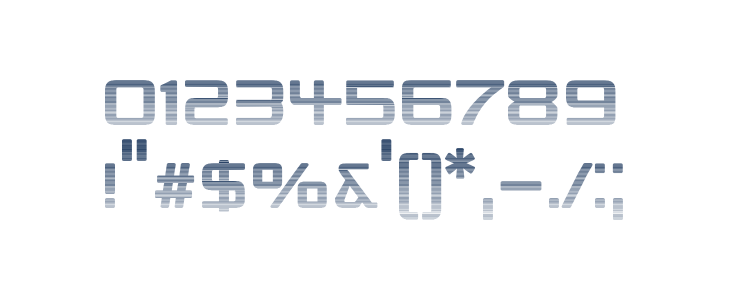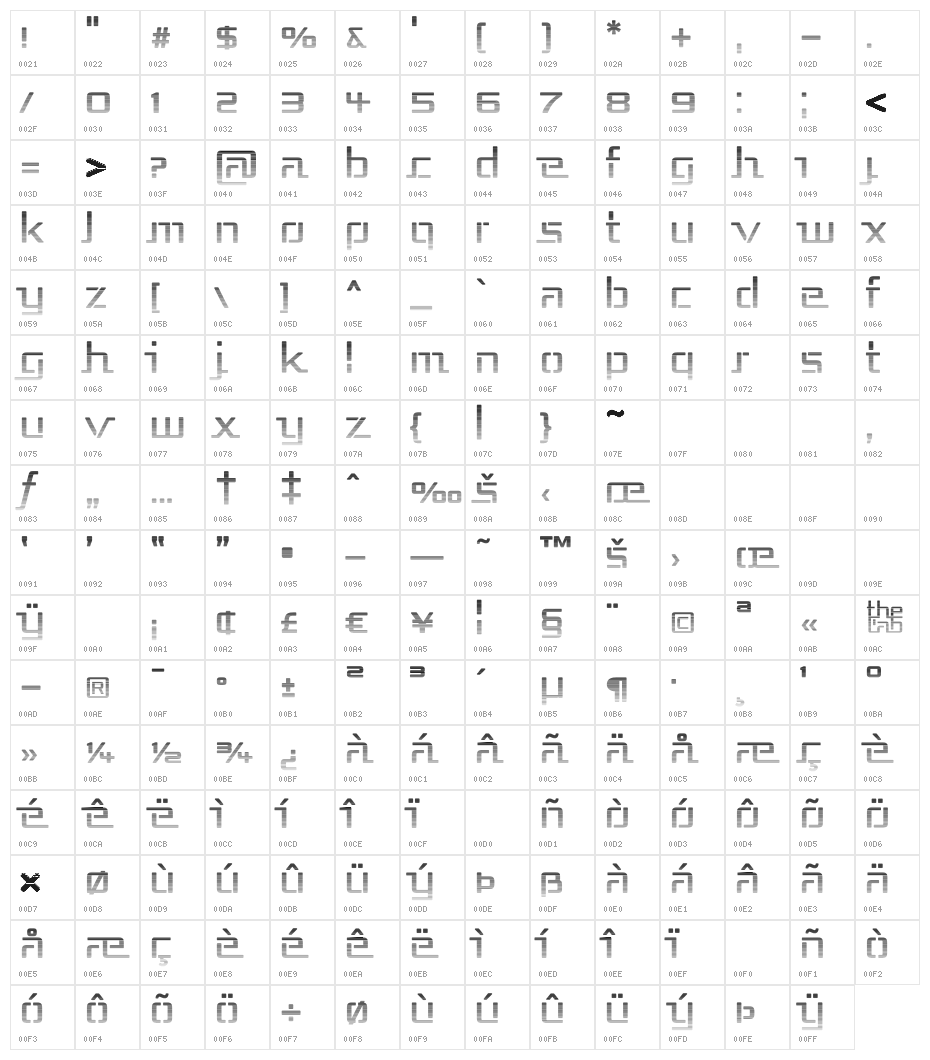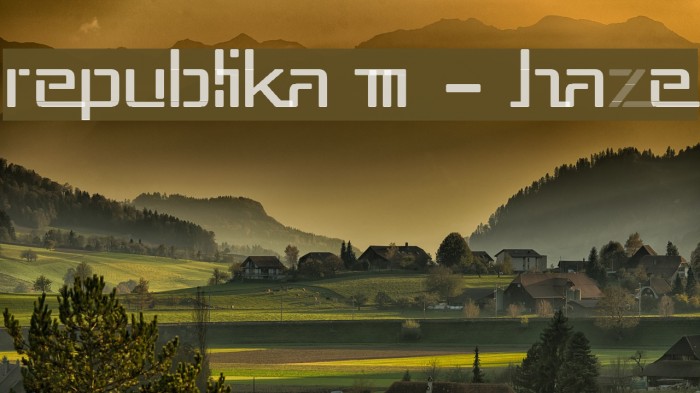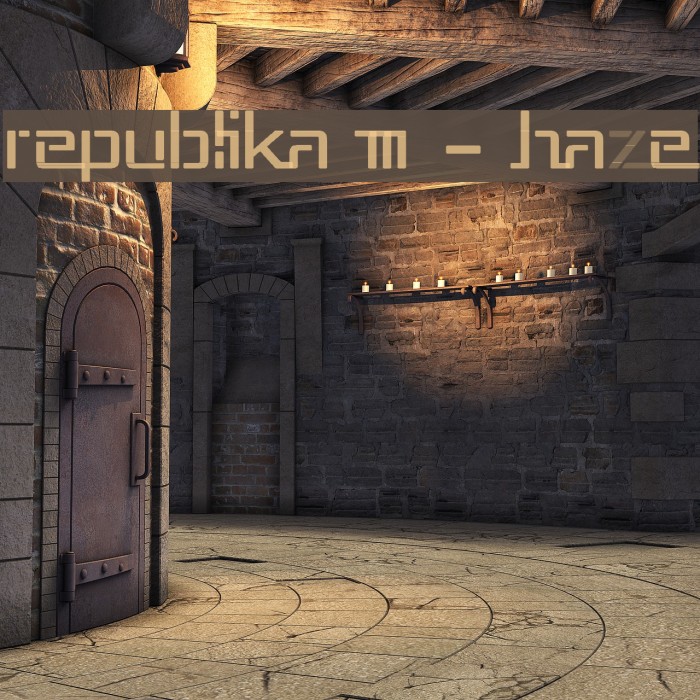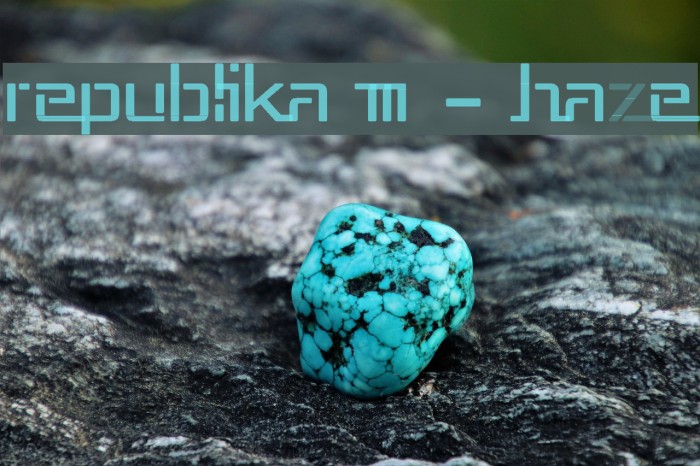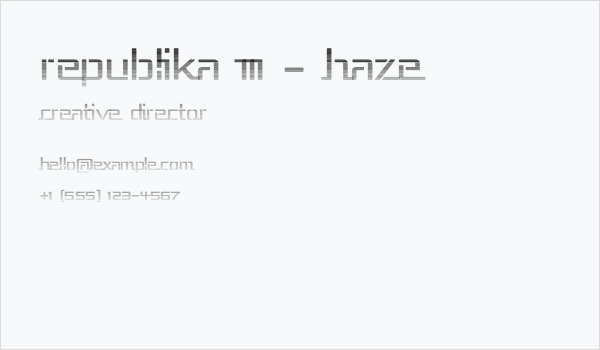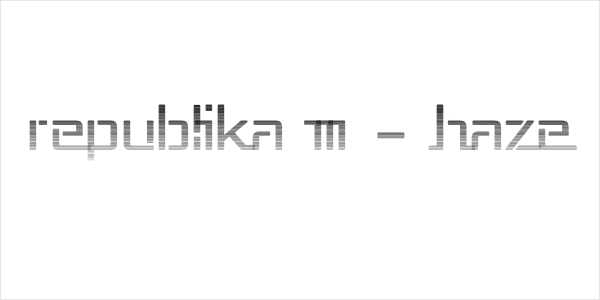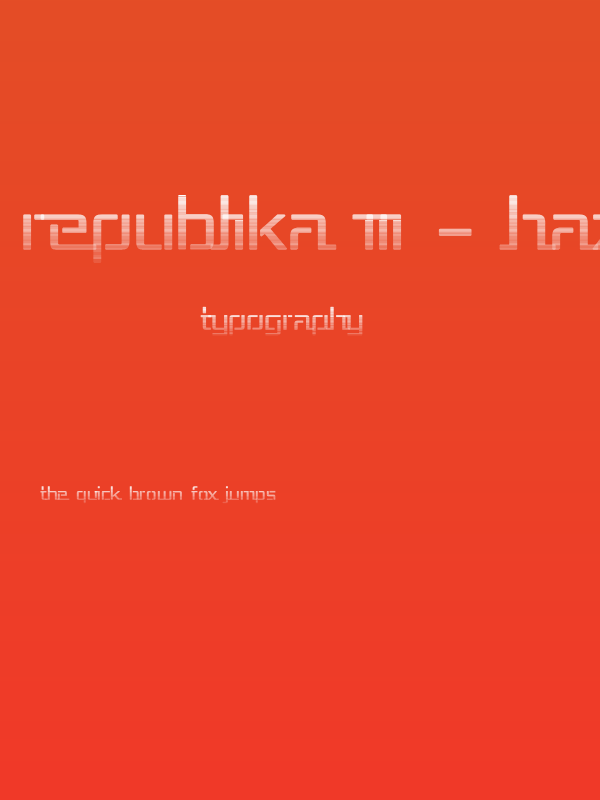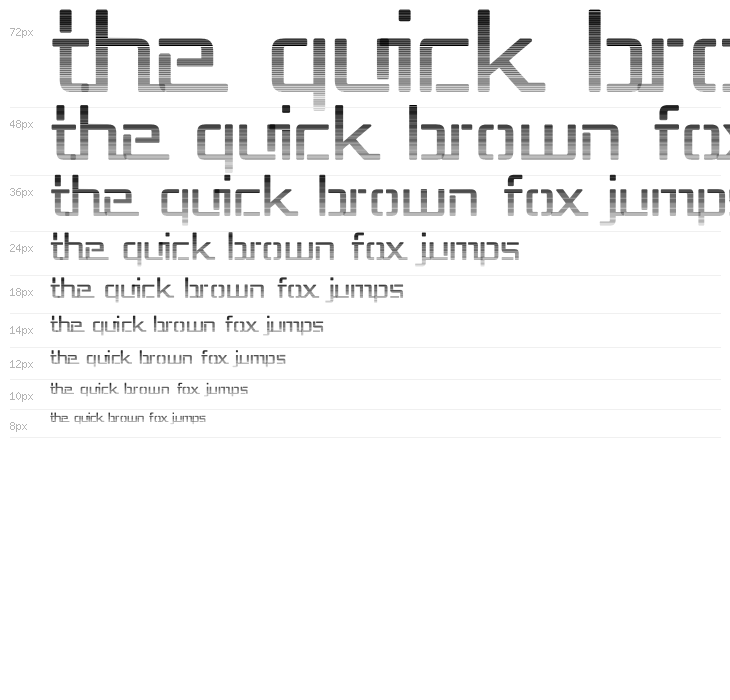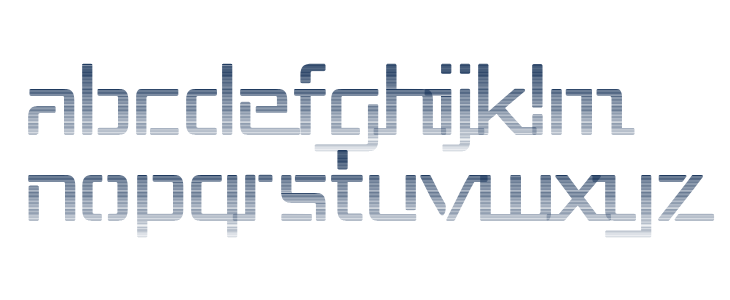
Republika III - Haze Font
Republika III - Haze Description
This font features a futuristic and digital aesthetic, characterized by its geometric and angular design. The letters are constructed with a series of horizontal lines that create a sense of movement and modernity. The uppercase and lowercase letters maintain a consistent style, with a focus on sharp edges and clean lines. The numerals and special characters follow the same design principles, ensuring uniformity across the entire typeface. The font's unique style makes it suitable for projects that require a contemporary and tech-savvy look.
| Use Case | Logos, Headlines, Digital interfaces |
| Proposed Projects | Ideal for technology branding, digital media, sci-fi themed projects, and modern advertising. |